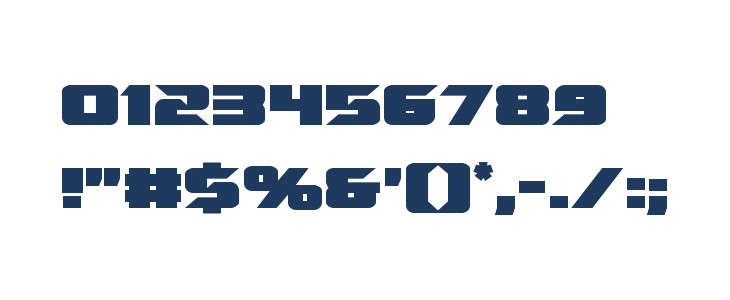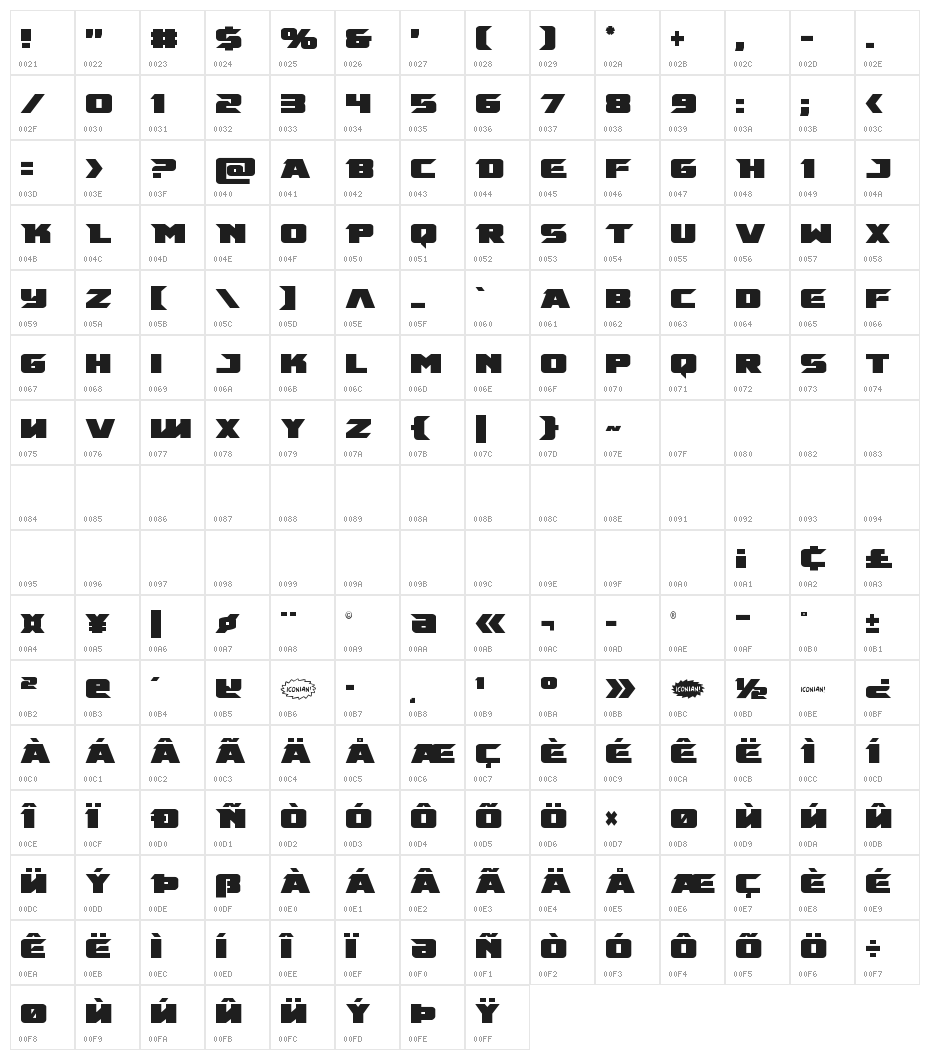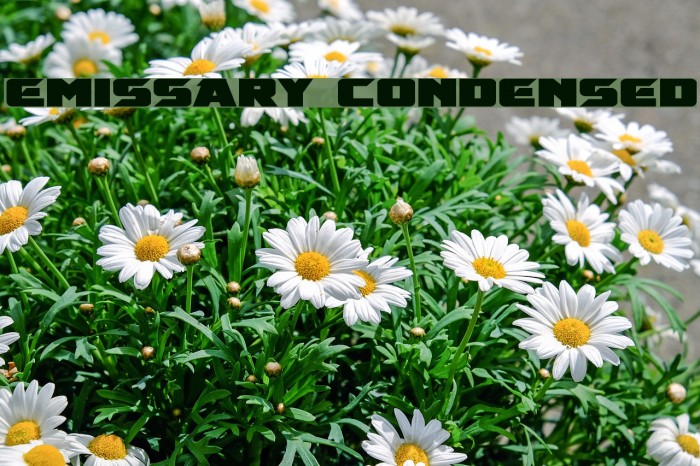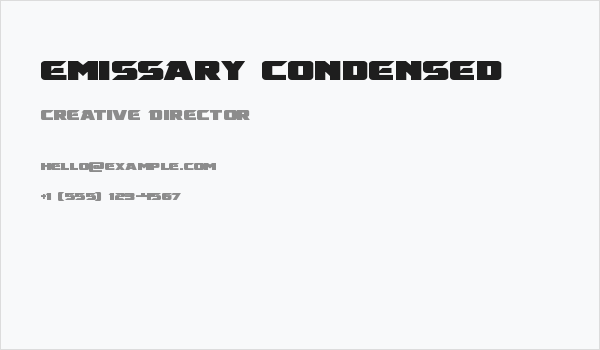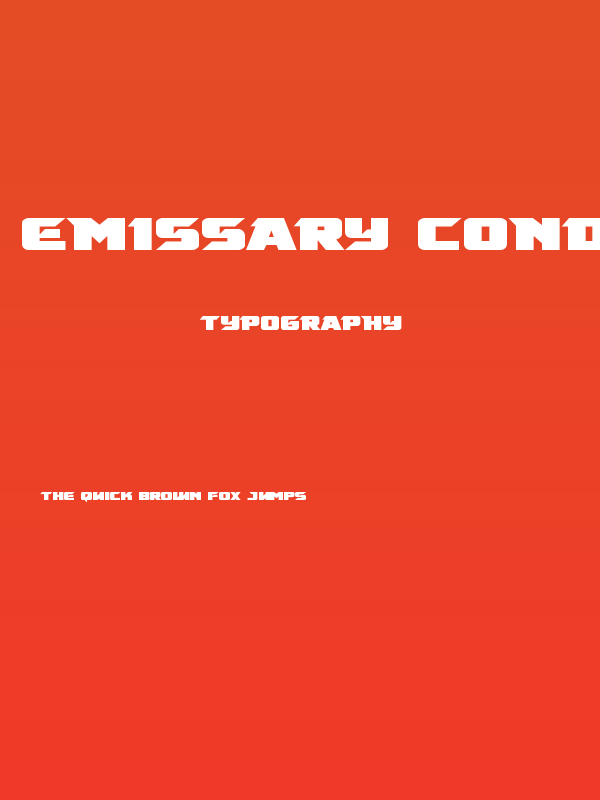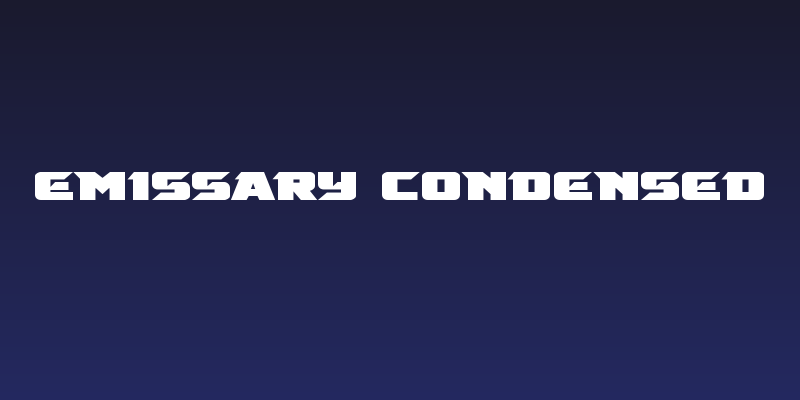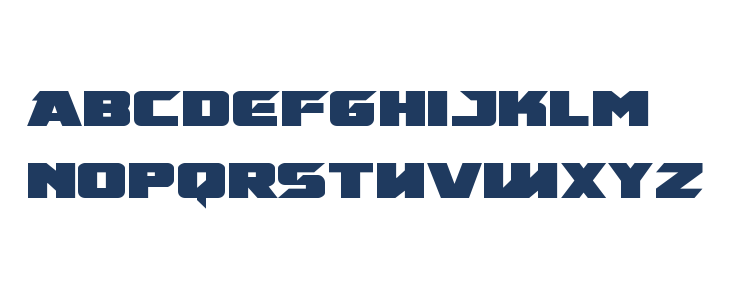
Emissary Condensed Font
Emissary Condensed Description
This font features a bold, geometric design with sharp angles and a futuristic aesthetic. The characters are condensed, giving a compact appearance that emphasizes their strong, impactful presence. The uppercase letters are particularly striking, with unique cuts and edges that create a sense of movement and dynamism. The numbers and special characters maintain this bold style, ensuring consistency across all elements. This font is ideal for projects that require a modern and assertive look, such as branding for tech companies or video game titles.
| Proposed Projects | Ideal for tech branding, video game titles, and modern poster designs. |